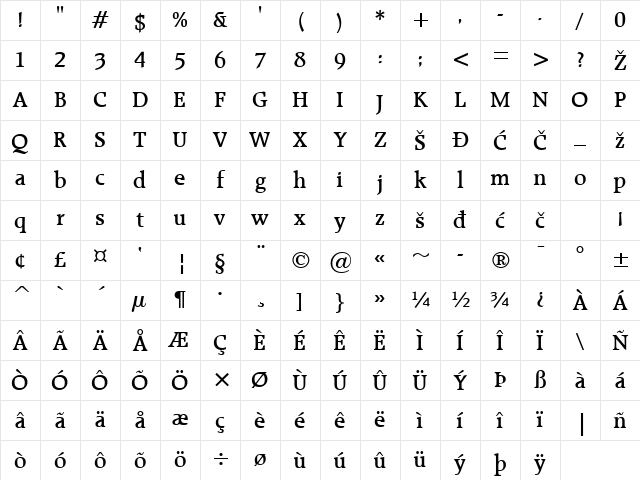
RaleighBlack Regular
Design Context for RaleighBlack
RaleighBlack is a composed and adaptable typeface that performs quietly and consistently across a wide range of design contexts.
Pro Tip: Use RaleighBlack in both headline and body roles to test its range before committing to a single application.